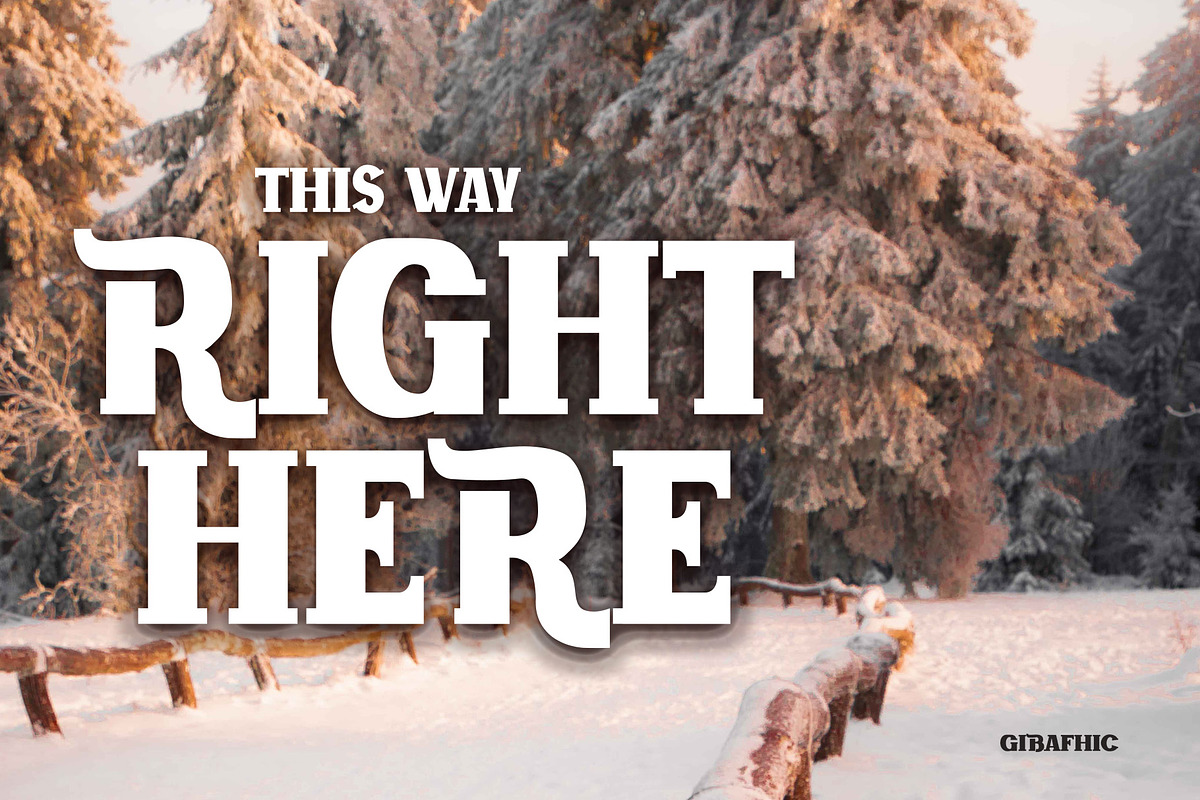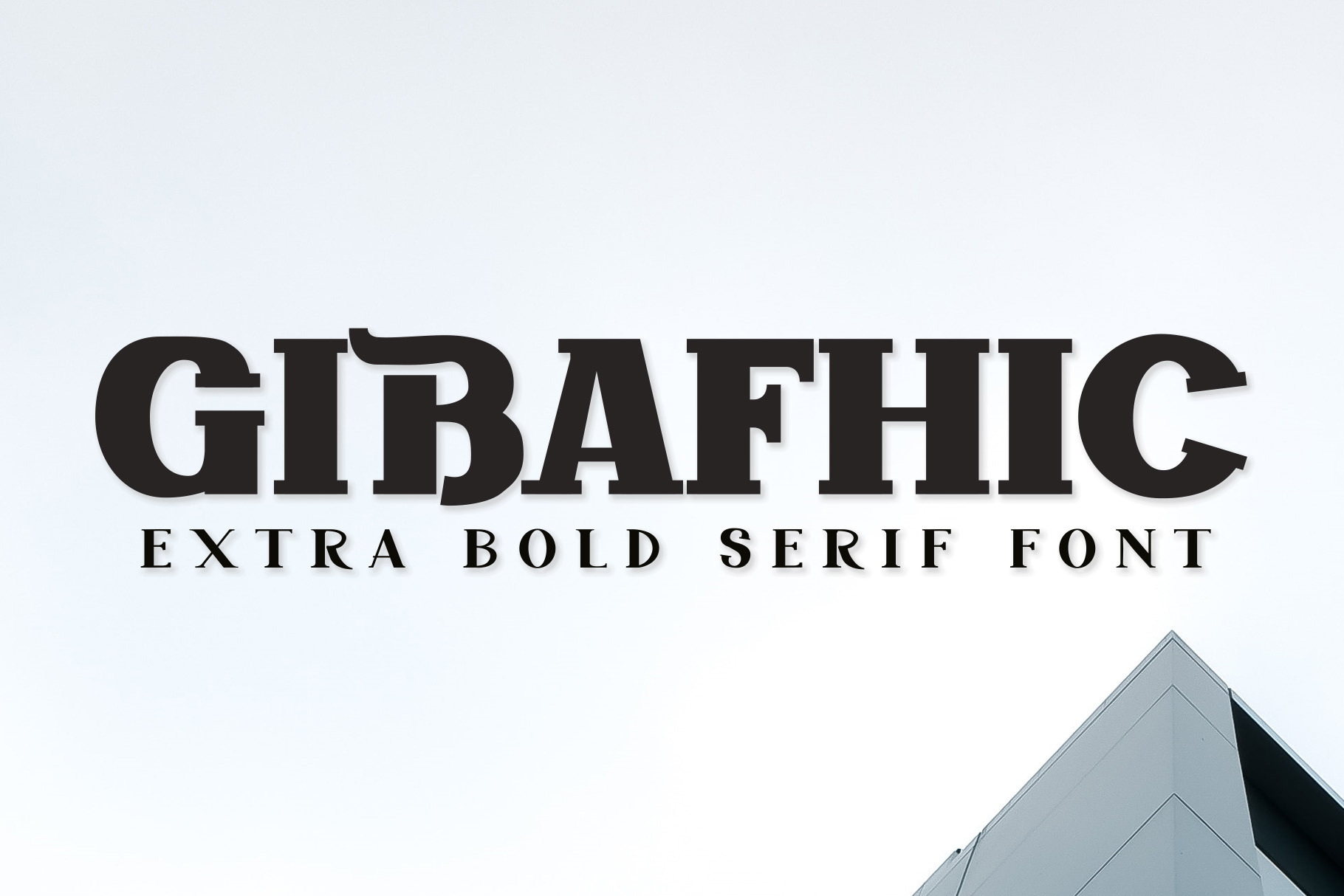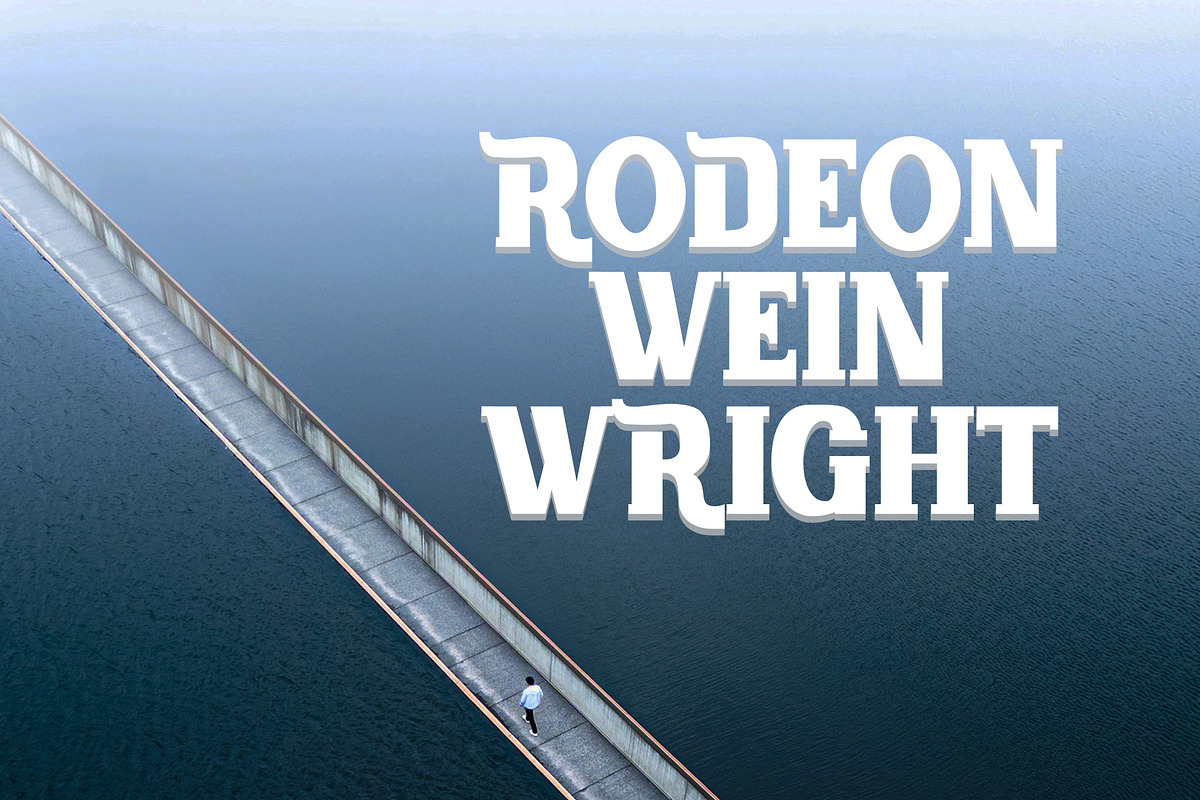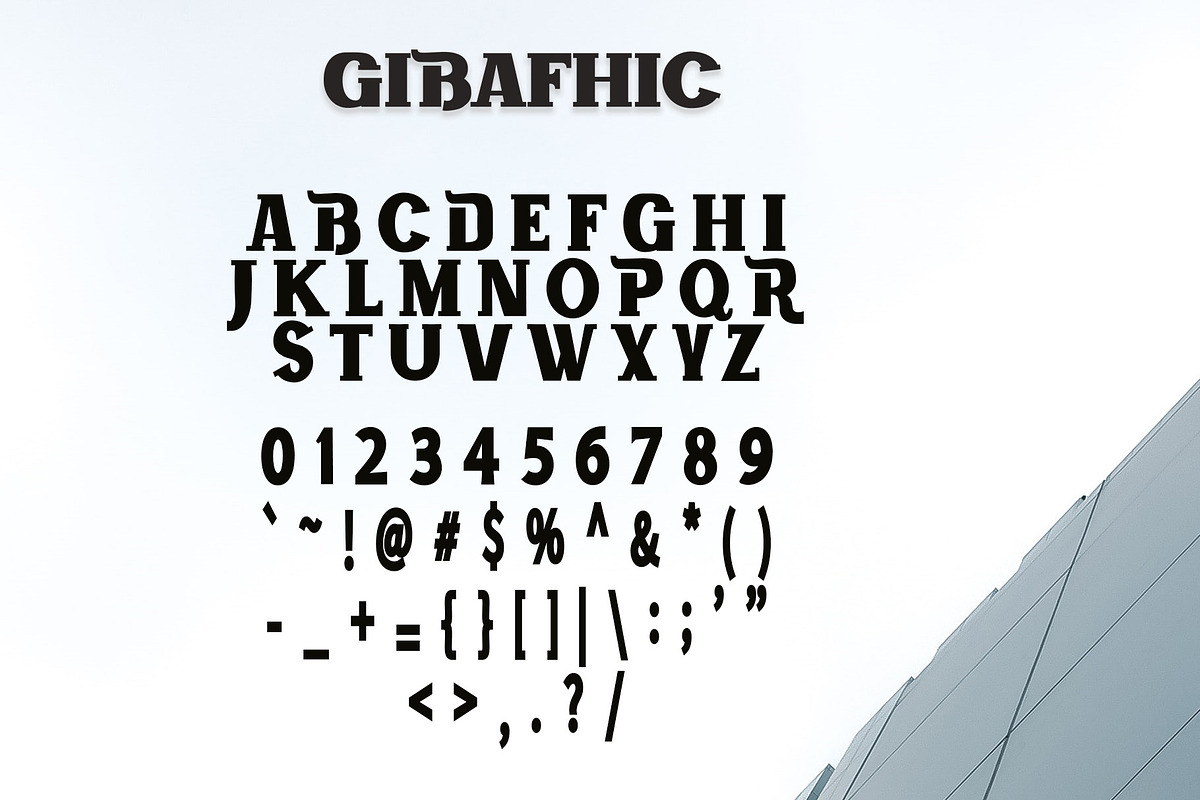
Gibafhic - Serif Bold Font
Introducing Gibafhic, a serif bold font. So perfect for you who needs a typeface for logo designs, magazine, social media, brochure, and many more.